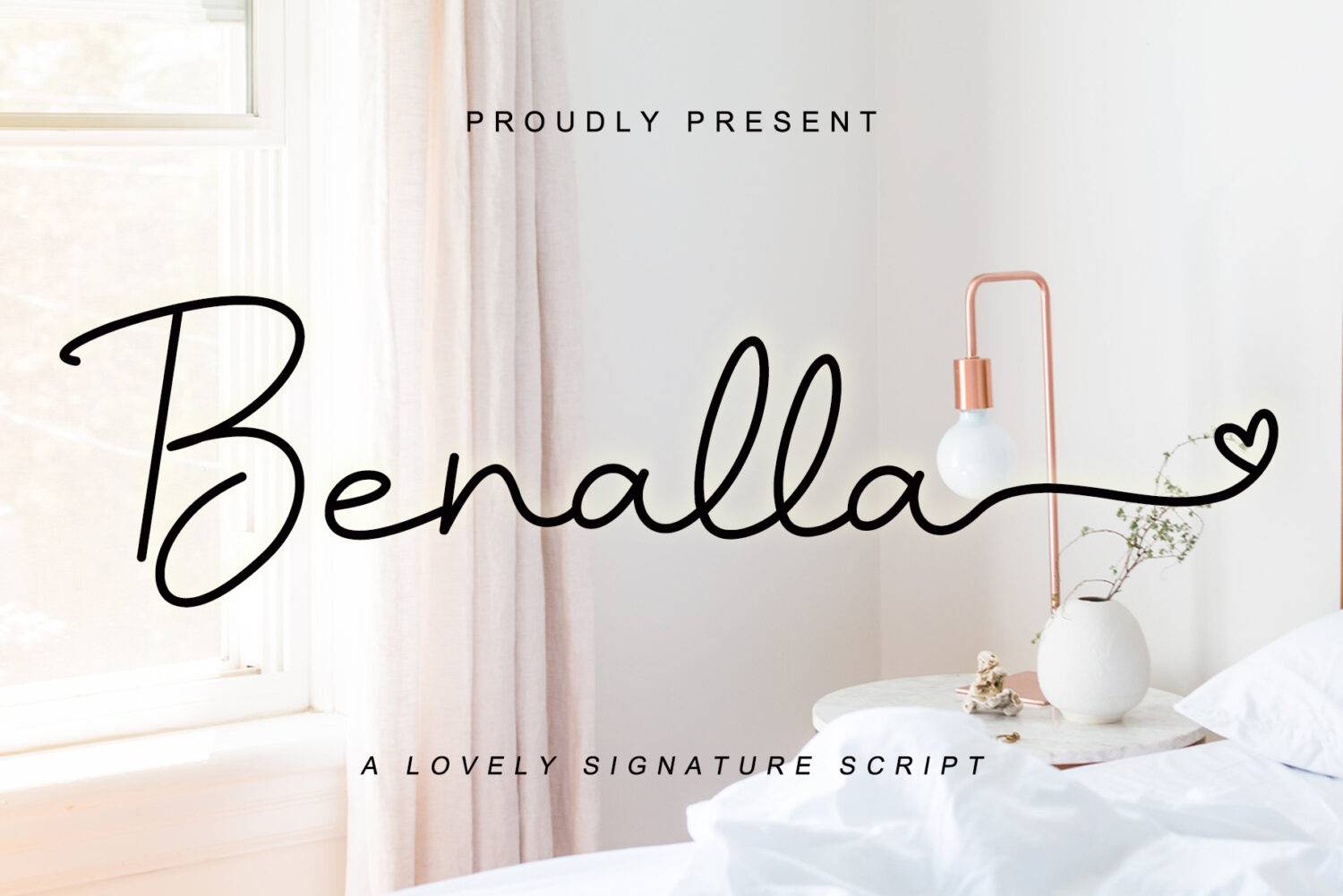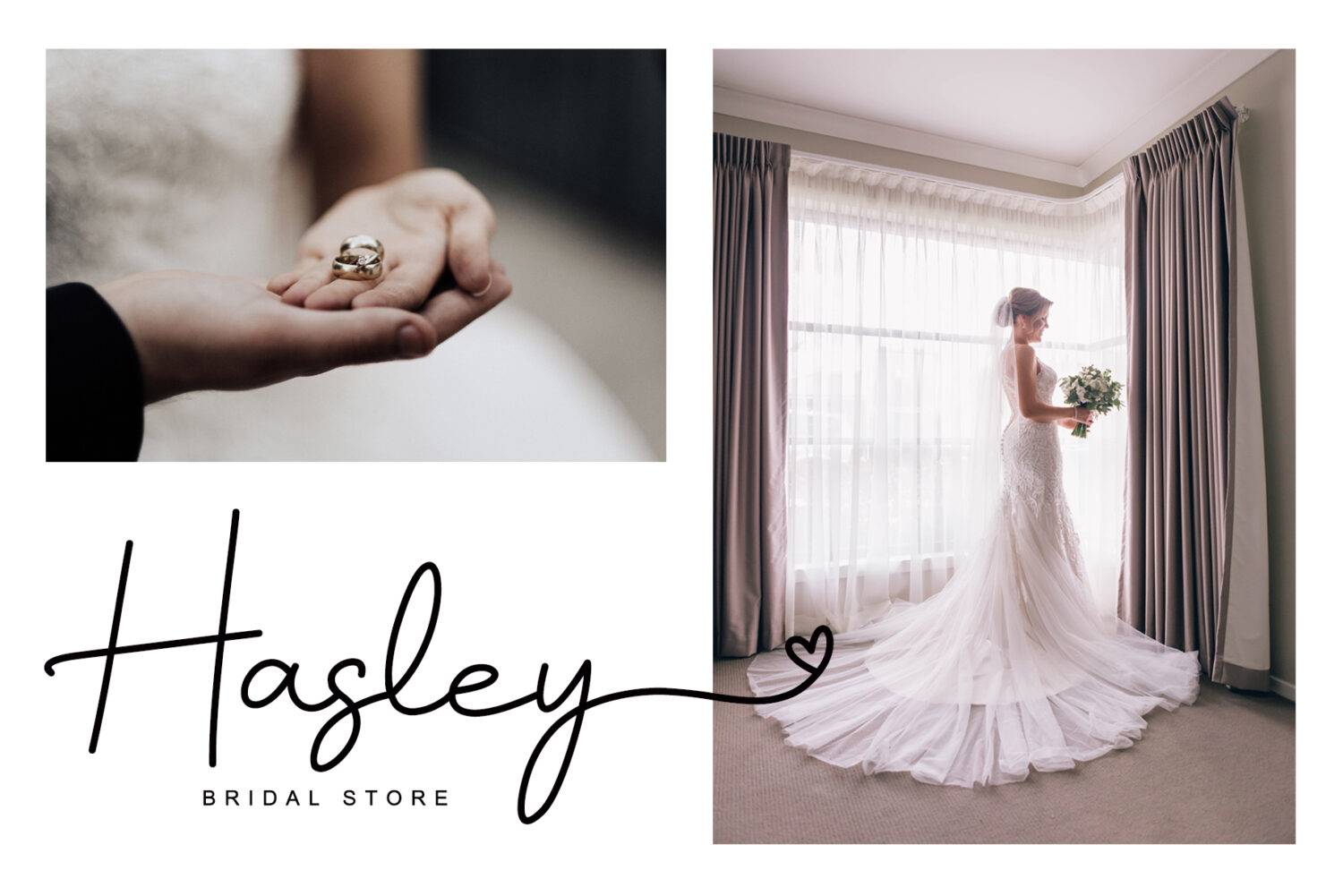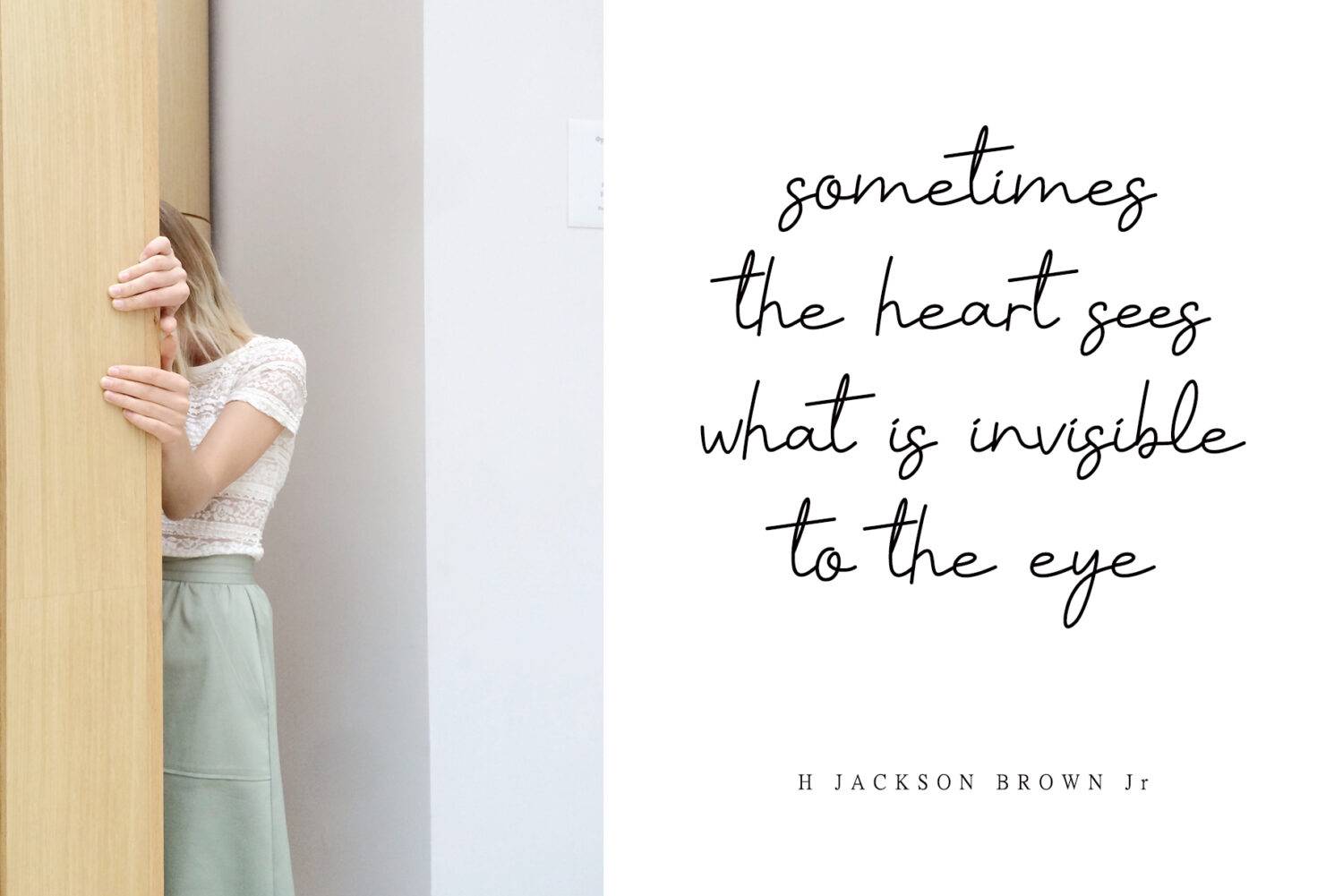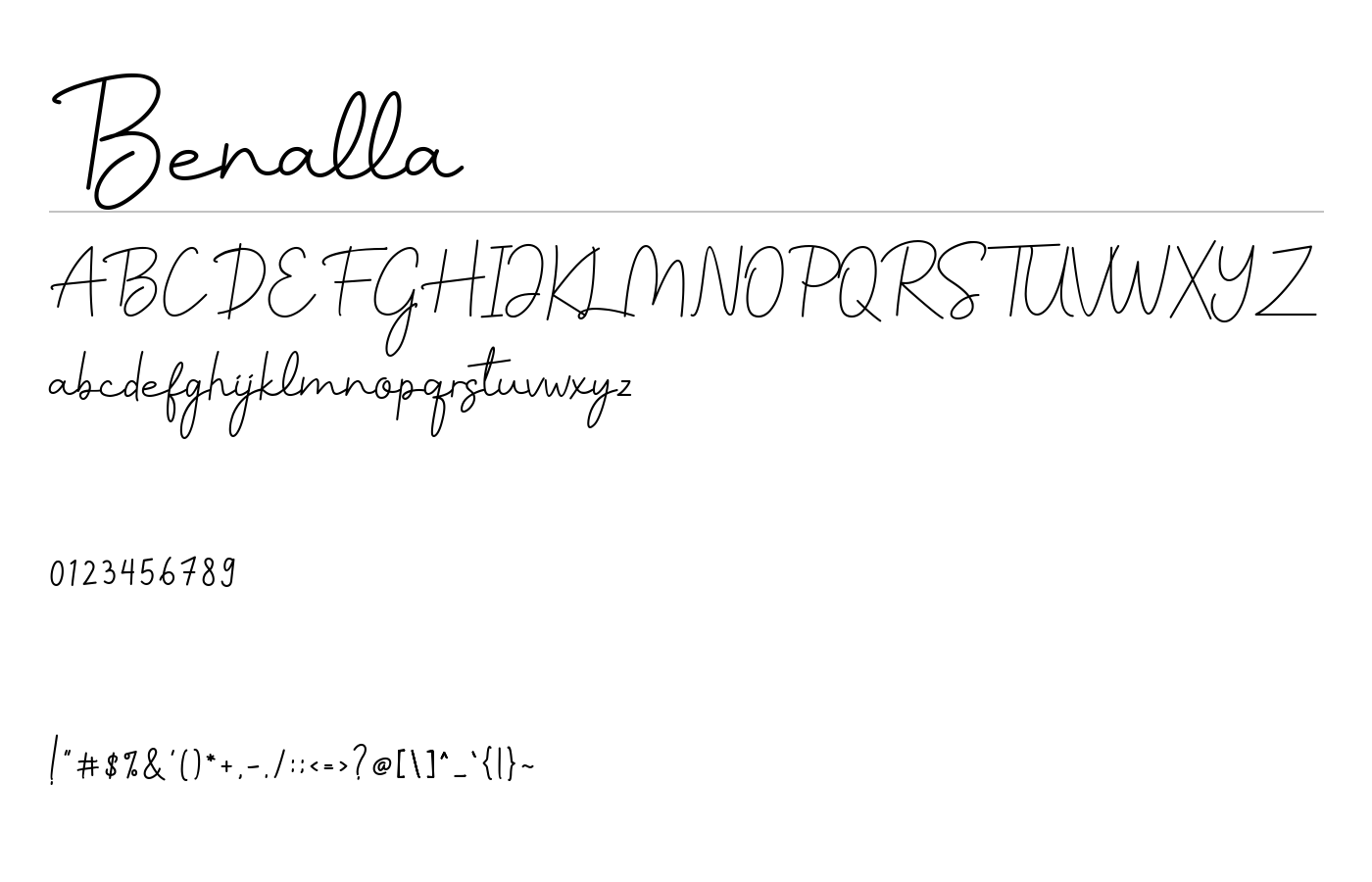
Benalla is a light, handwritten script font with a casual and elegant feel, characterized by its thin, delicate strokes and slightly playful letterforms. Its narrow width and fluid connections make it ideal for personal branding, invitations, and creative projects where a warm, approachable touch is desired. This font works well in contexts that seek to convey friendliness and sophistication without being overly formal.
Benalla Font
About Benalla Font
| Font family | Benalla Font |
| Designer | AEN Creative Studio 2020 |